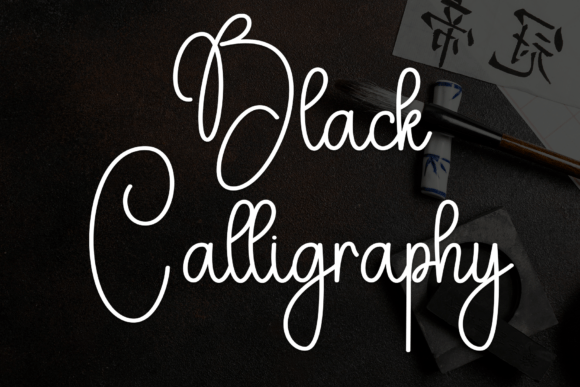
Introduction to Black Calligraphy Font
Black Calligraphy is a handwritten script font that combines graceful curves with a refined, artistic flow, perfect for designs that demand elegance and personality.
Its smooth, fluid strokes and balanced letterforms create a natural handwritten feel, ideal for invitations, wedding stationery, boutique logos, social media branding, and product packaging With extensive character support and versatile ligatures , this font adapts beautifully to both modern and classic aesthetics.
Key Features of Black Calligraphy Font